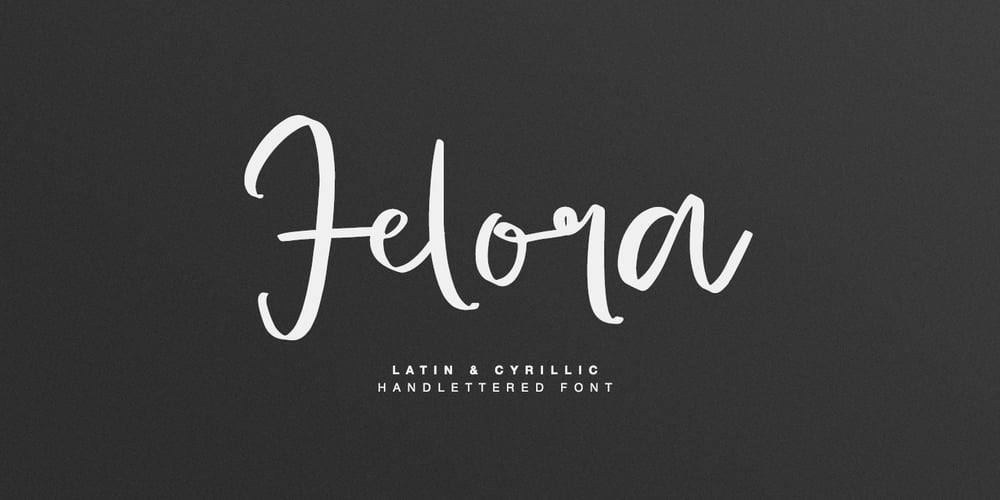
Felora Font Family was designed by Dmitrii Chirkov and published by Supfonts. Felora contains 1 styles and family package options. Introducing the elegant new Felora script! For those of you who are needing a touch of elegance and modernity for your designs, this font was created for you! Представлю вам свой новый элегантный шрифт Фелора! Для тех, кто нуждается в красивом и современном шрифте для своих проектов. Встречайте – этот шрифт был создан для вас! What’s Included: Felora script OTF / TTF Multilingual Latin support Multilingual Cyrillic support Полная поддержка русского языка Check out my blog: www.instagram.com/dmitriychirkov pinterest.com/dmitriychirkov7